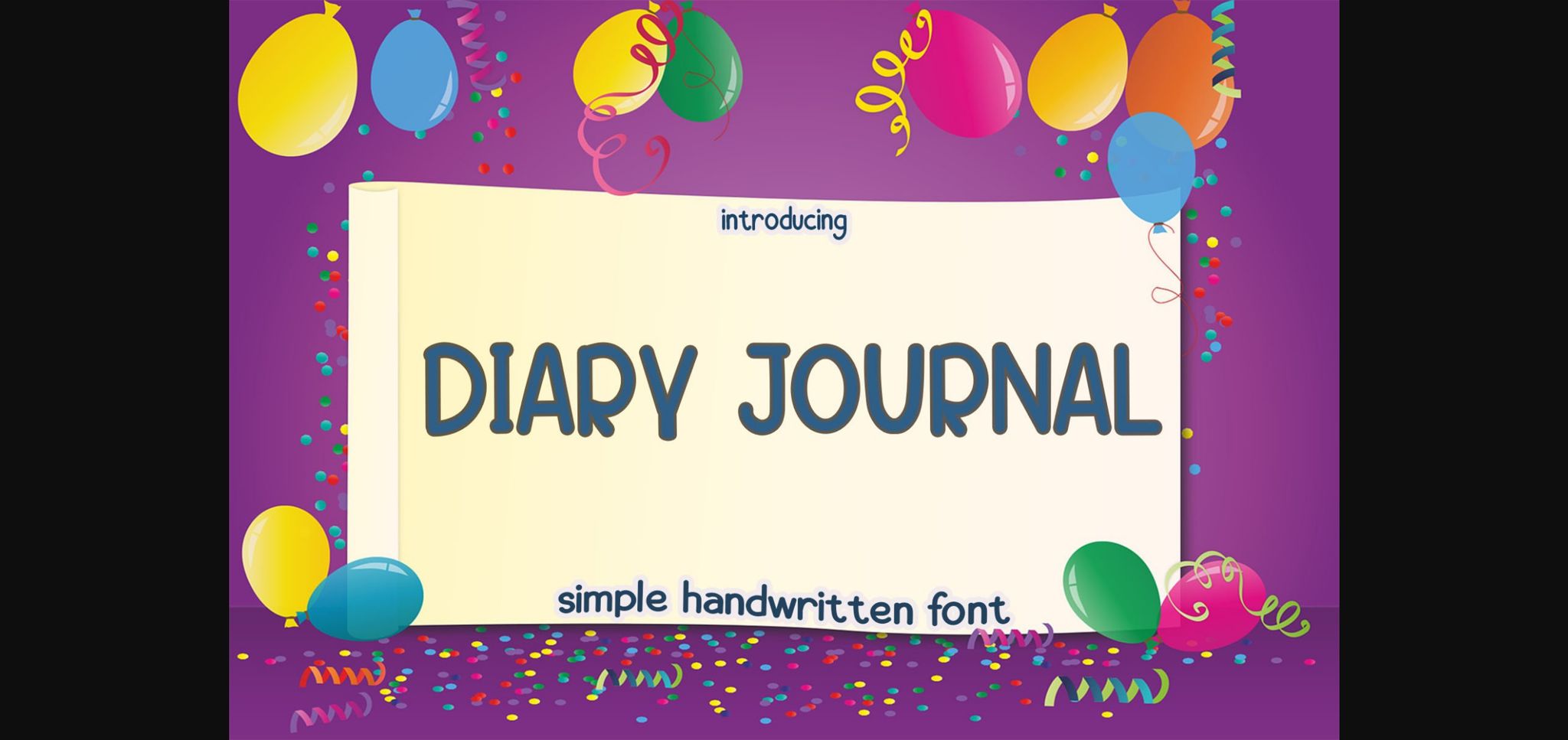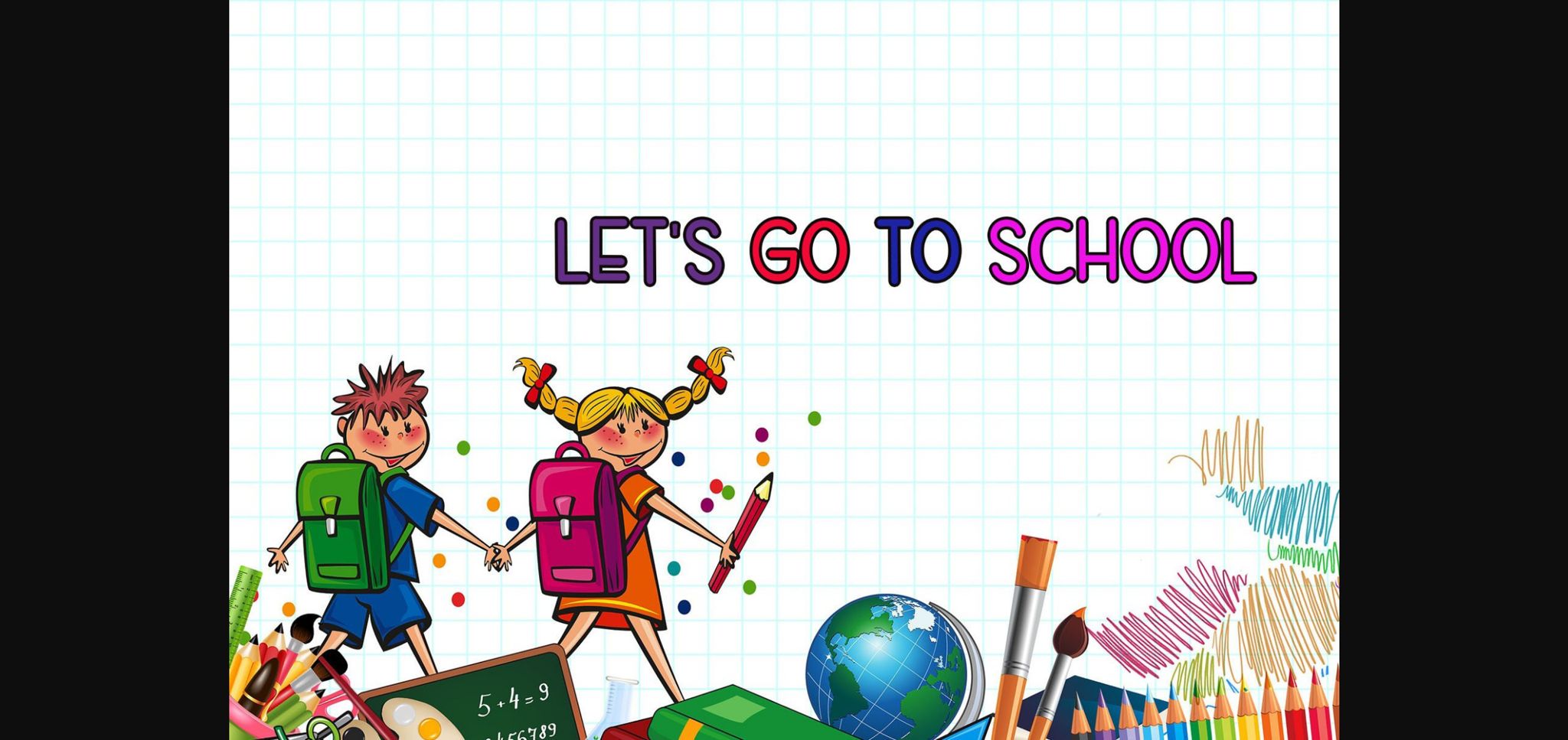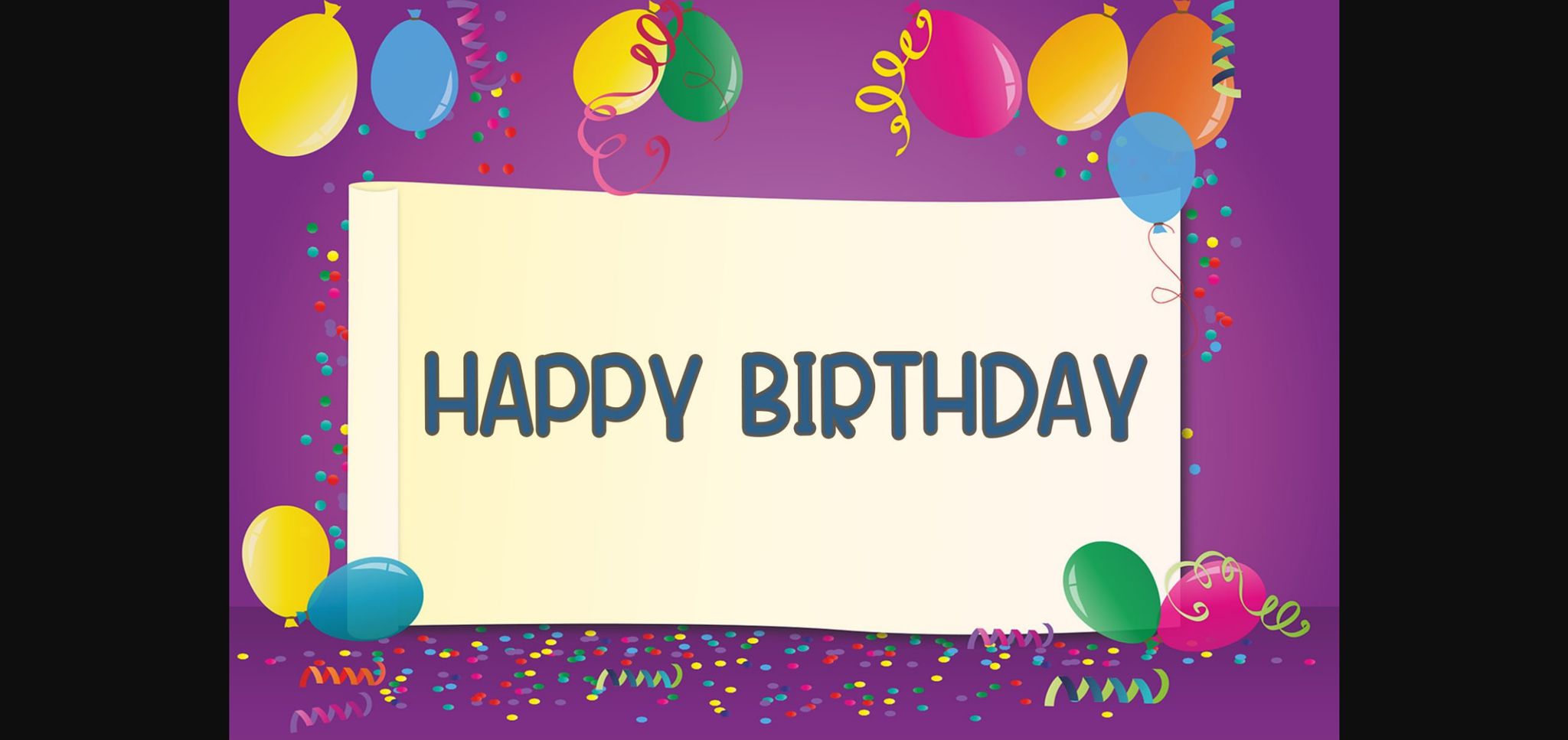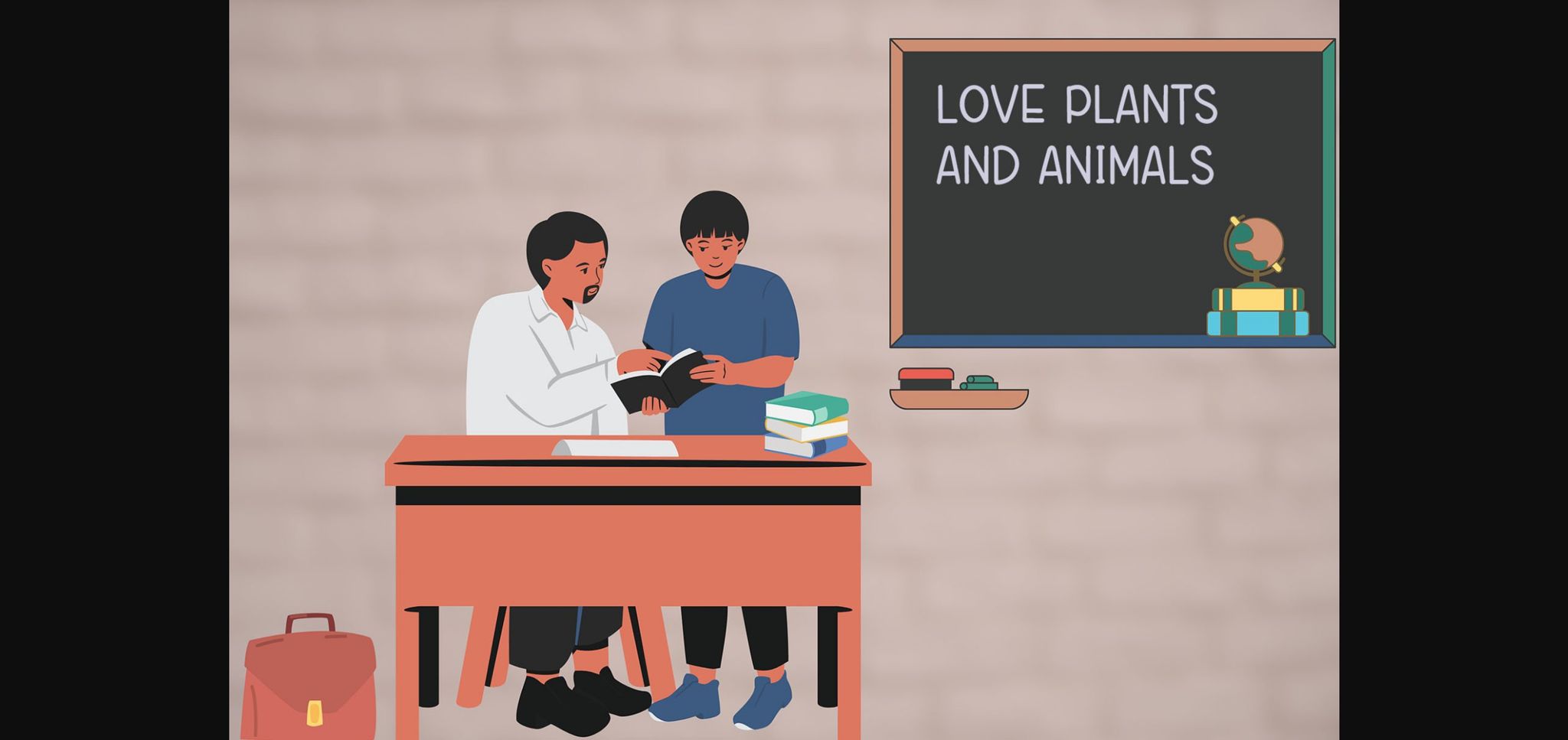
About Diary Journal Font
Diary Journal is an enchanting and beautiful sans serif font. This versatile typeface has a wide spectrum of applications ranging from greeting cards to headlines and is guaranteed to add a playful feel to your next project!